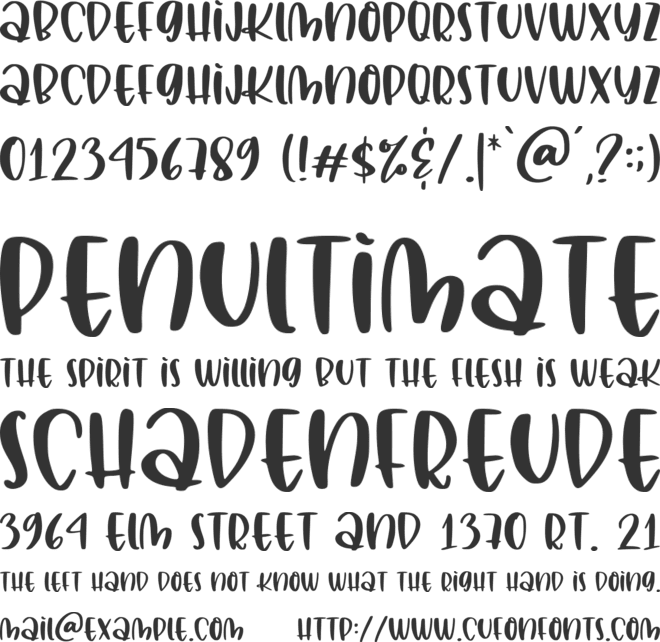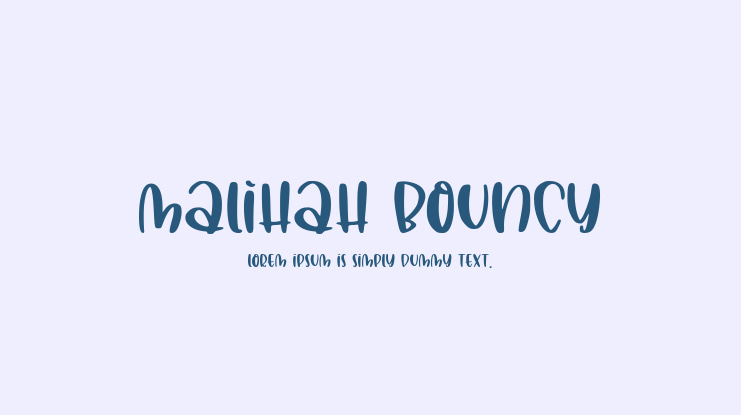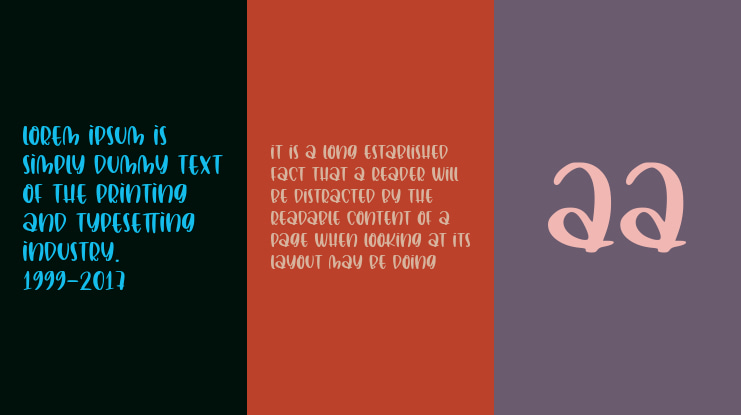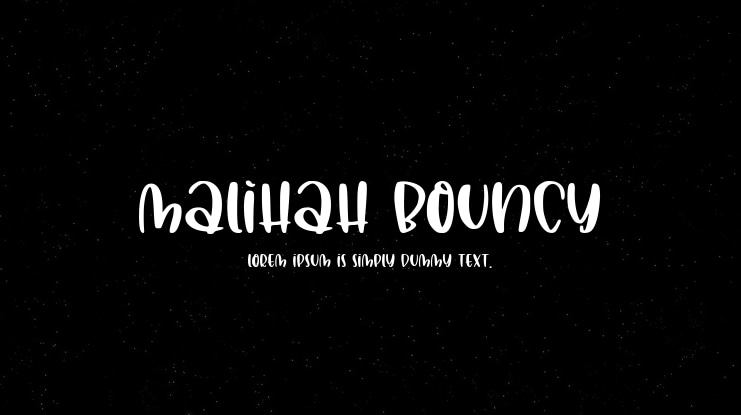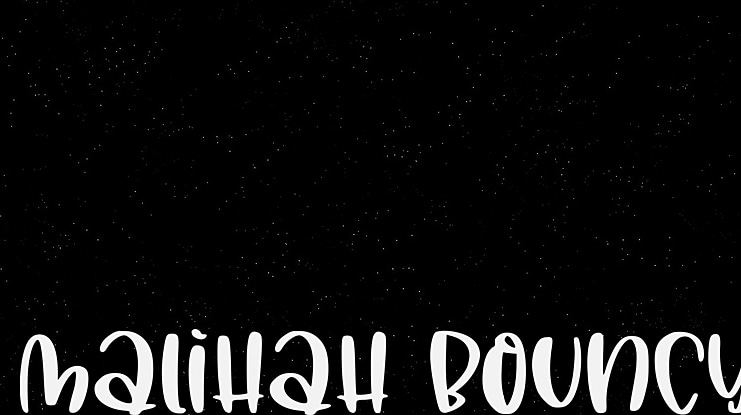
Malihah Bouncy Font
MALIHAH BOUNCY - cute and bouncy font -
Malihah is a joyful, bouncy and incredibly cute handwritten font. Fall in love with its incredibly versatile style and use it to create gorgeous wedding invitations, beautiful stationary art, eye-catching social media posts, and much more!